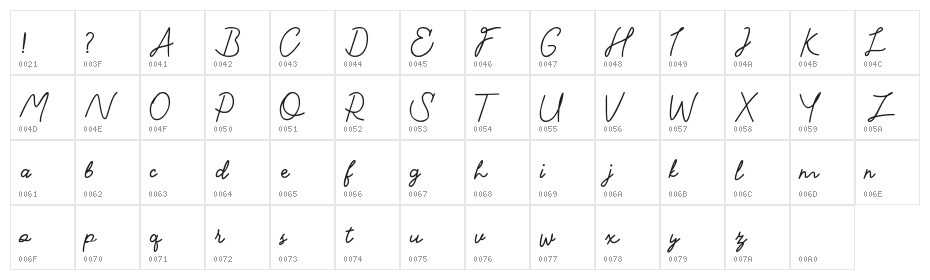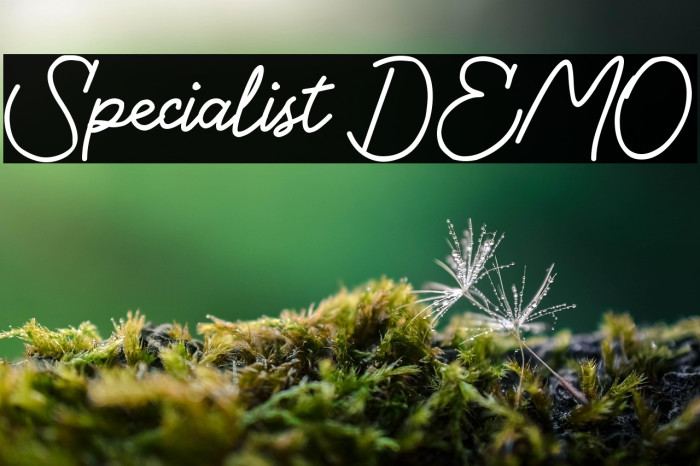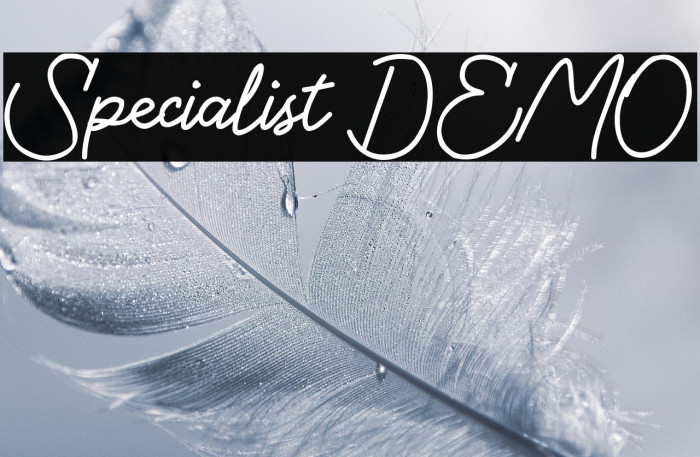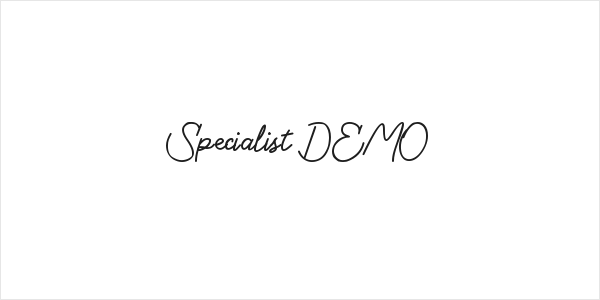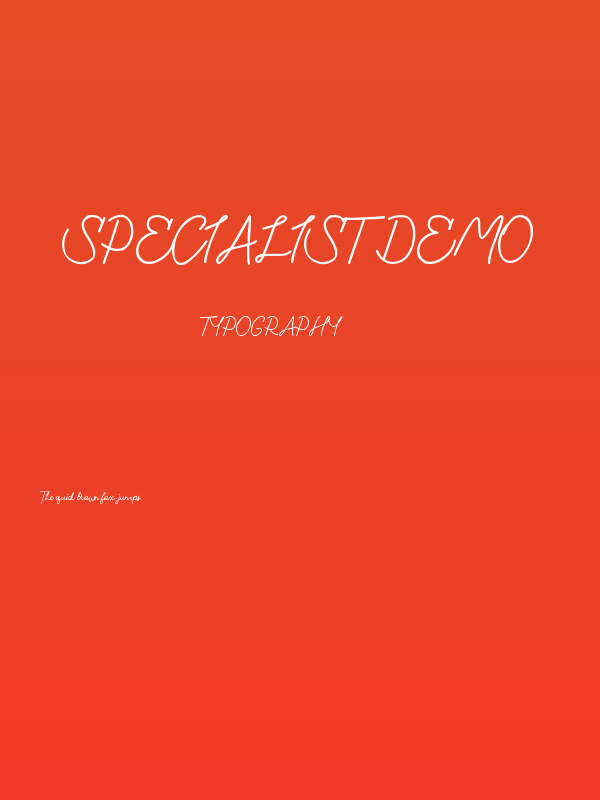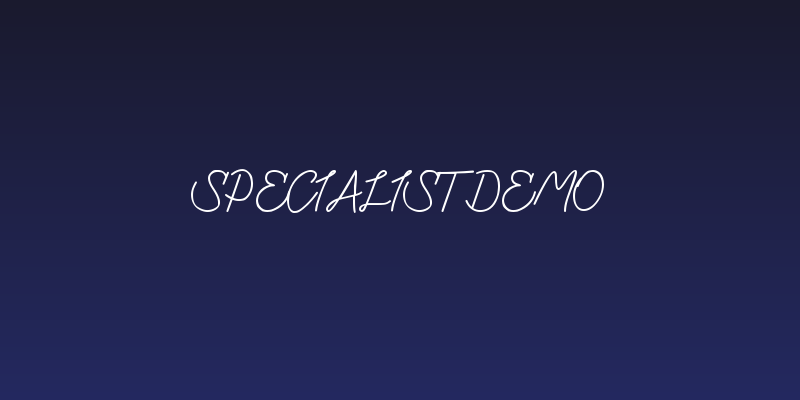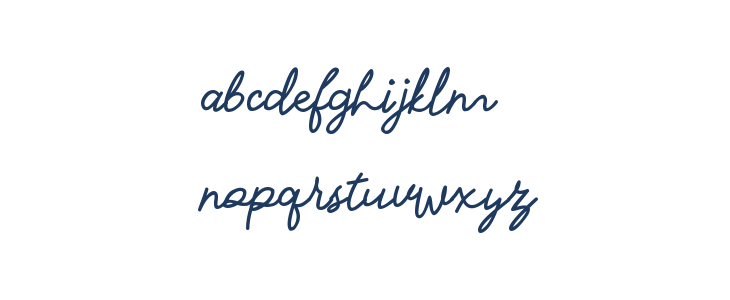
Specialist DEMO Font
Specialist DEMO Description
This font exudes a casual elegance with its fluid, cursive style. The letters are interconnected, creating a seamless flow that mimics natural handwriting. The uppercase characters are slightly taller and more pronounced, while the lowercase letters maintain a consistent baseline, enhancing readability. The strokes are smooth and rounded, with a slight slant that adds to the handwritten feel. The font's overall appearance is both sophisticated and approachable, making it versatile for various design needs.
| Proposed Projects | Ideal for wedding invitations, personal branding, greeting cards, and creative projects that require a personal touch. |